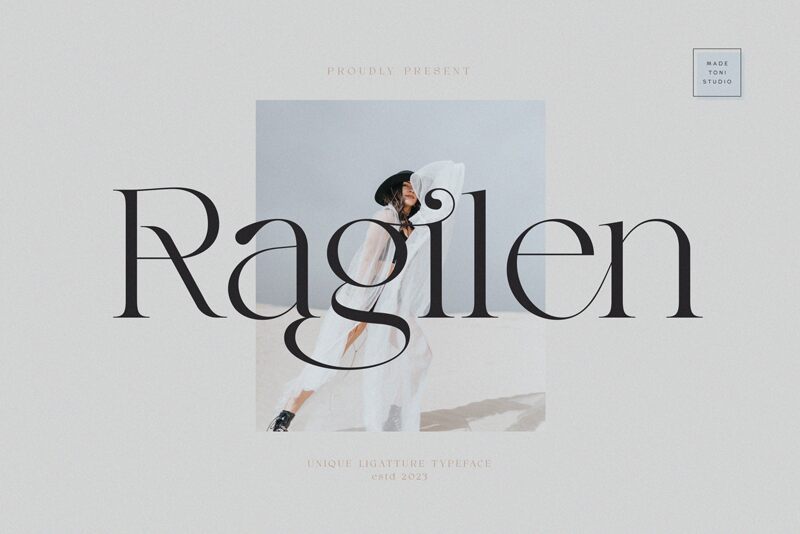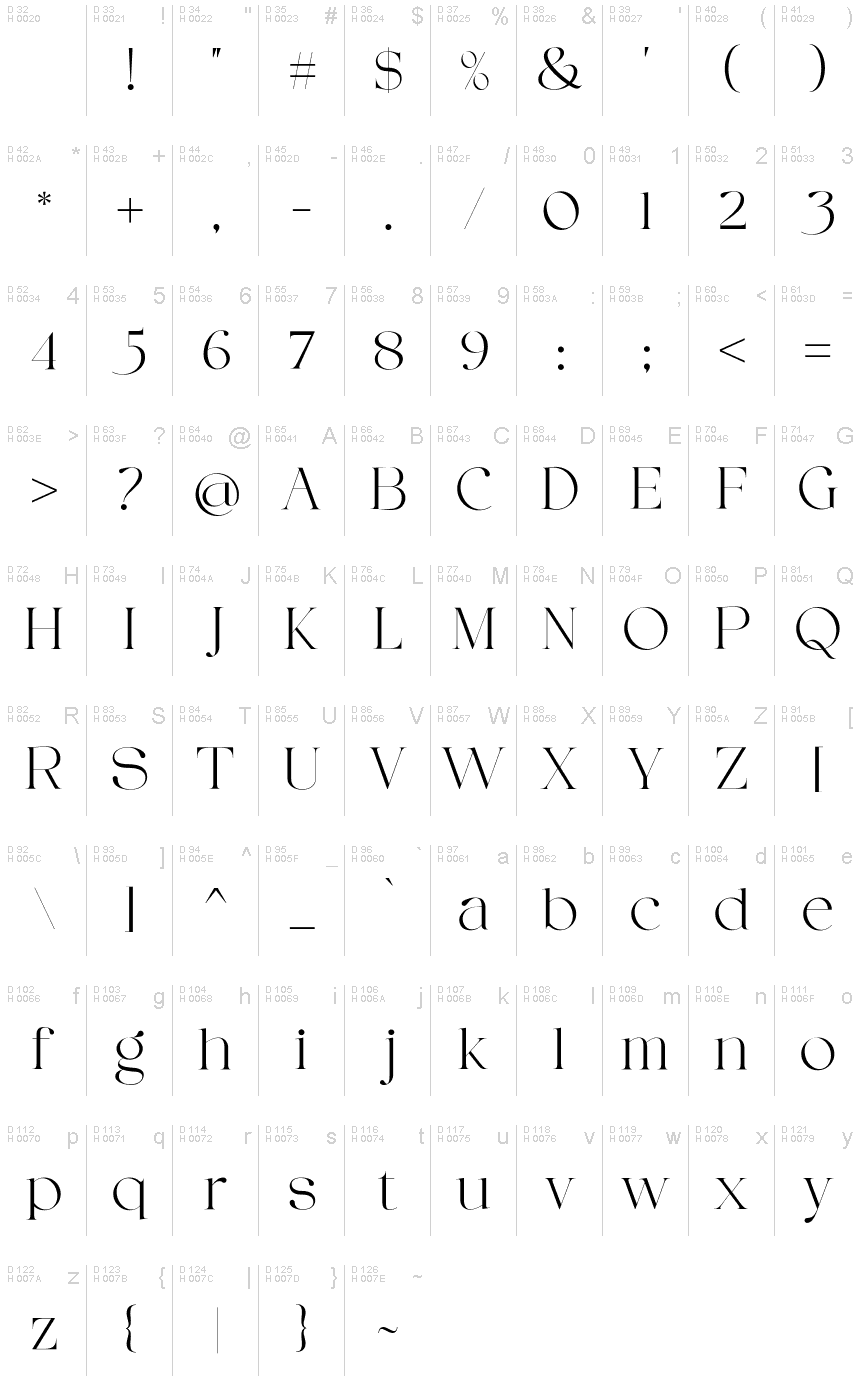
Ragilen
Ragilen, crafted by ToniStudio, is a refined serif font that exudes elegance and sophistication. With its semi-light weight, Ragilen strikes the perfect balance between legibility and artistic flair.
Ideal for editorial projects, Ragilen lends an air of timeless charm to book covers, magazine spreads, and invitations. Its graceful curves and sharp serifs make it equally suitable for branding materials such as logos and packaging designs. Bring a touch of classic beauty to your next project with Ragilen's delicate yet striking presence.